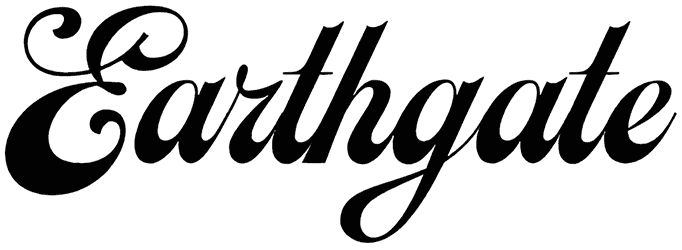
Earthgate Font
Earthgate font was designed elegantly and stylishly, making it a perfect choice for any style proposal. We found this script font very classy and elegant without being too heavyweight.
It can also be used for designing invitation cards for luxury brands such as perfumes. Taking into account the creative cursive design of this old-school font, it immediately grabs the attention of its audience.
Designed by: Letterhend Studio